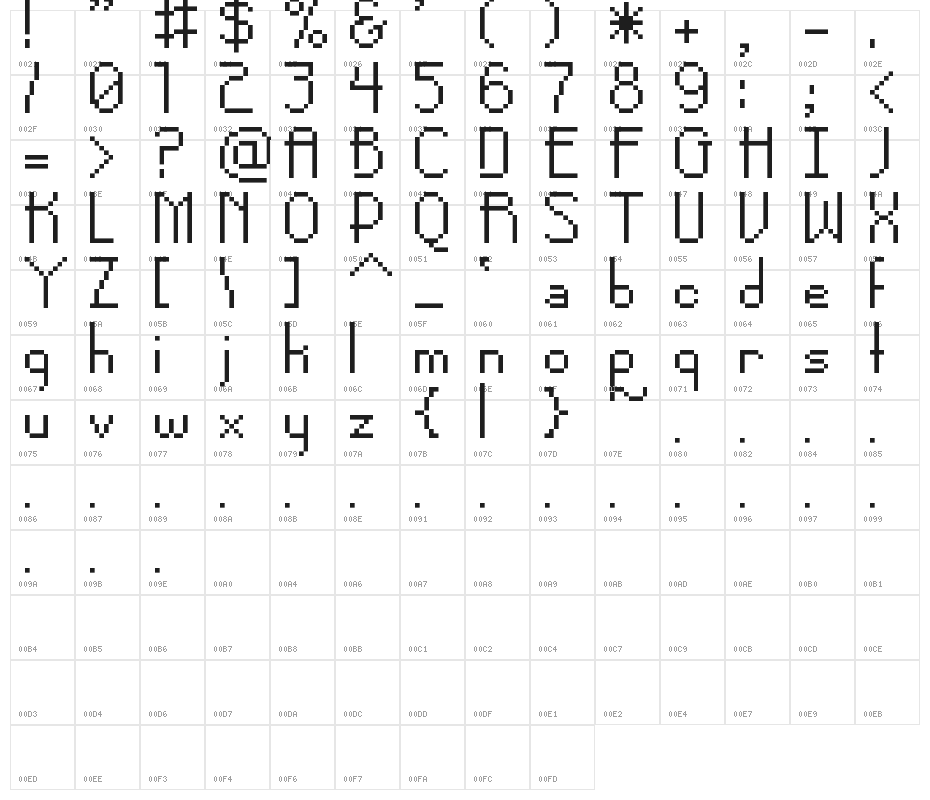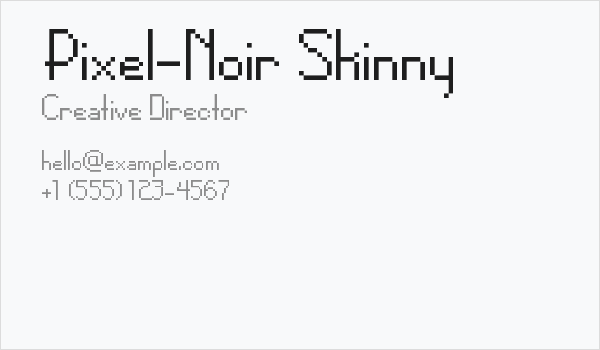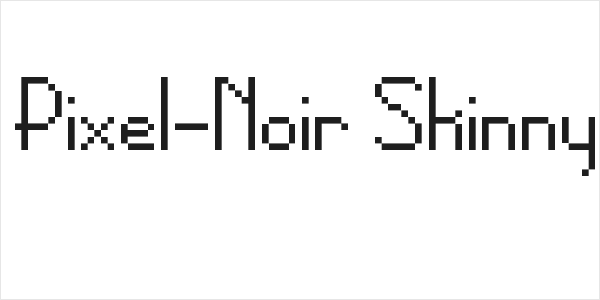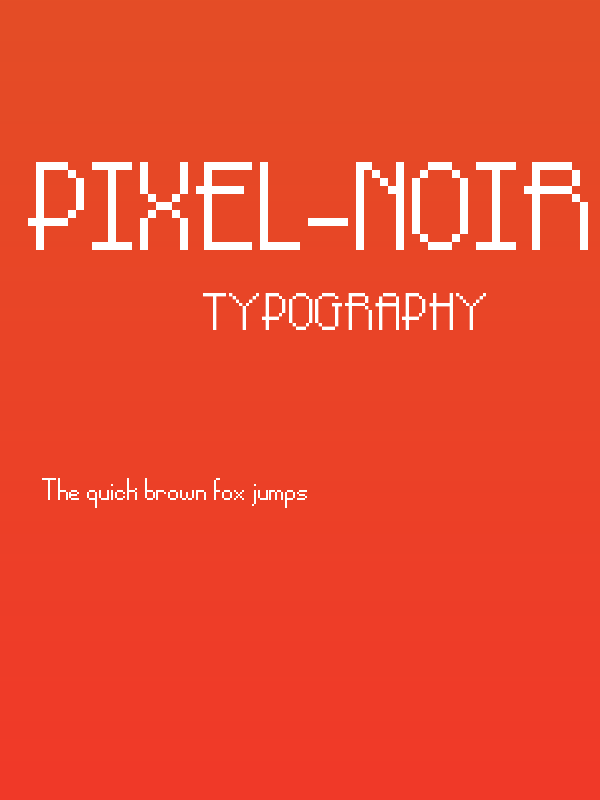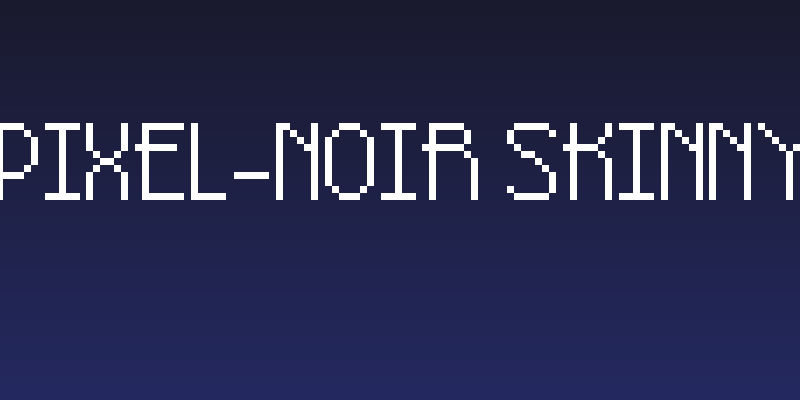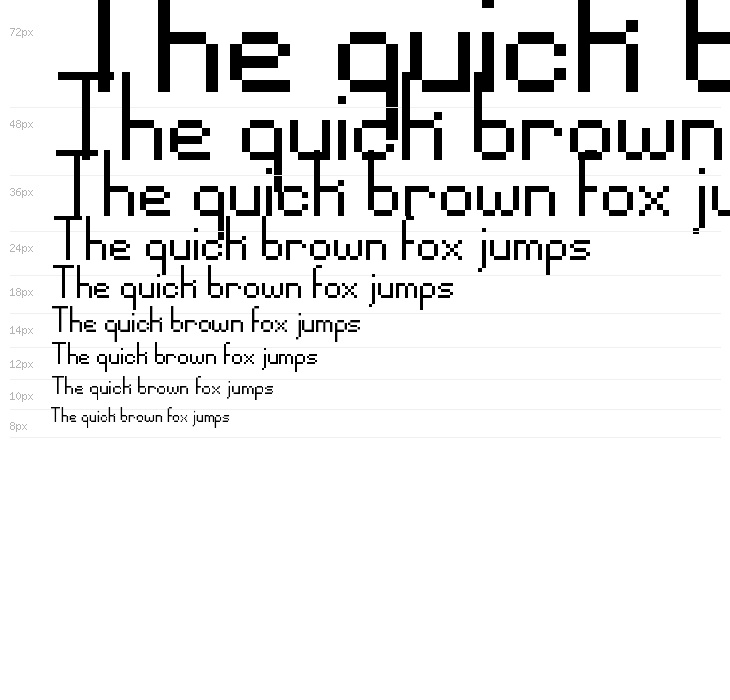
Pixel-Noir Skinny Font
Pixel-Noir Skinny Description
This font features a pixelated, retro design reminiscent of early digital displays and classic video games. The characters are constructed with a grid-like precision, giving them a blocky, geometric appearance. Each letter and number is composed of small square pixels, creating a uniform and consistent look across the entire set. The uppercase and lowercase letters maintain a similar height, contributing to a cohesive visual style. The font's simplicity and clarity make it ideal for projects that require a nostalgic or digital aesthetic. Its distinct pixelated form is both eye-catching and easily readable, even at smaller sizes. The special characters are designed with the same pixelated style, ensuring a seamless integration with the alphabetic and numeric characters.
| Overall Style | Retro, Digital |
| Use Case | Logos, Headlines, Digital displays |
| Proposed Projects | Ideal for retro video game graphics, digital art projects, tech-themed designs, and nostalgic branding. |